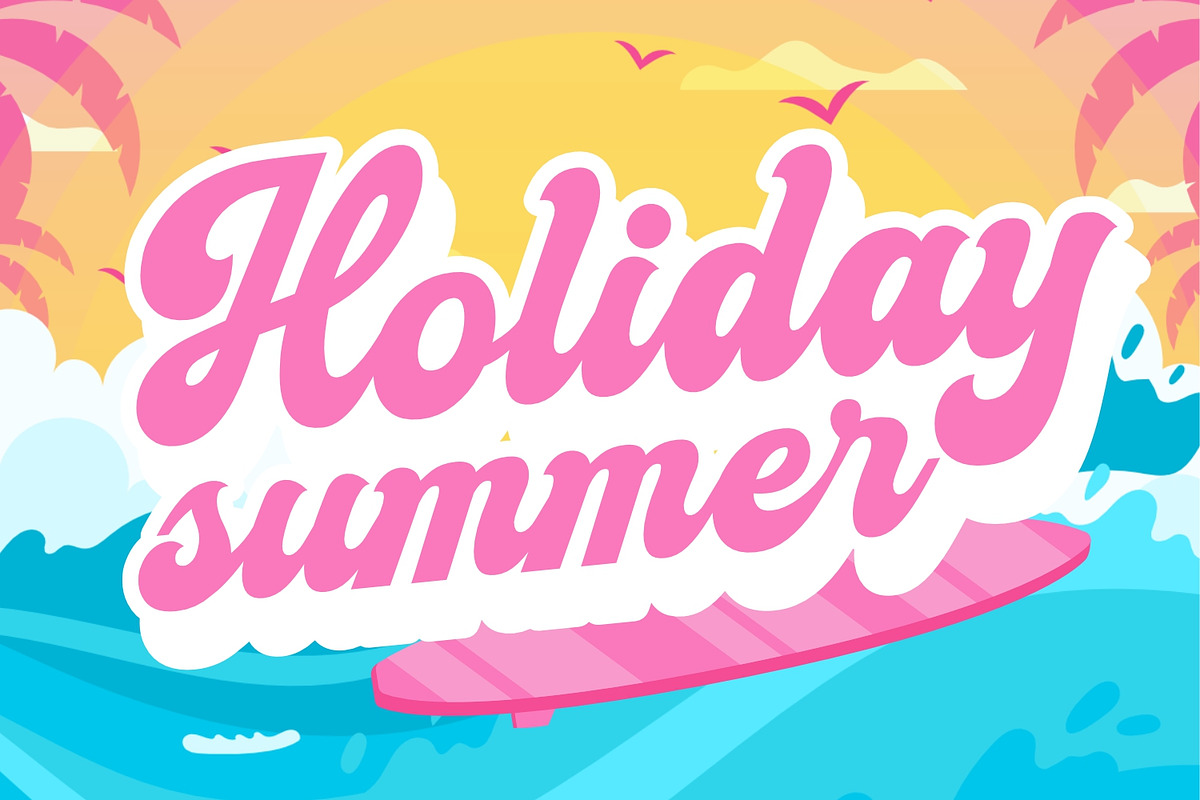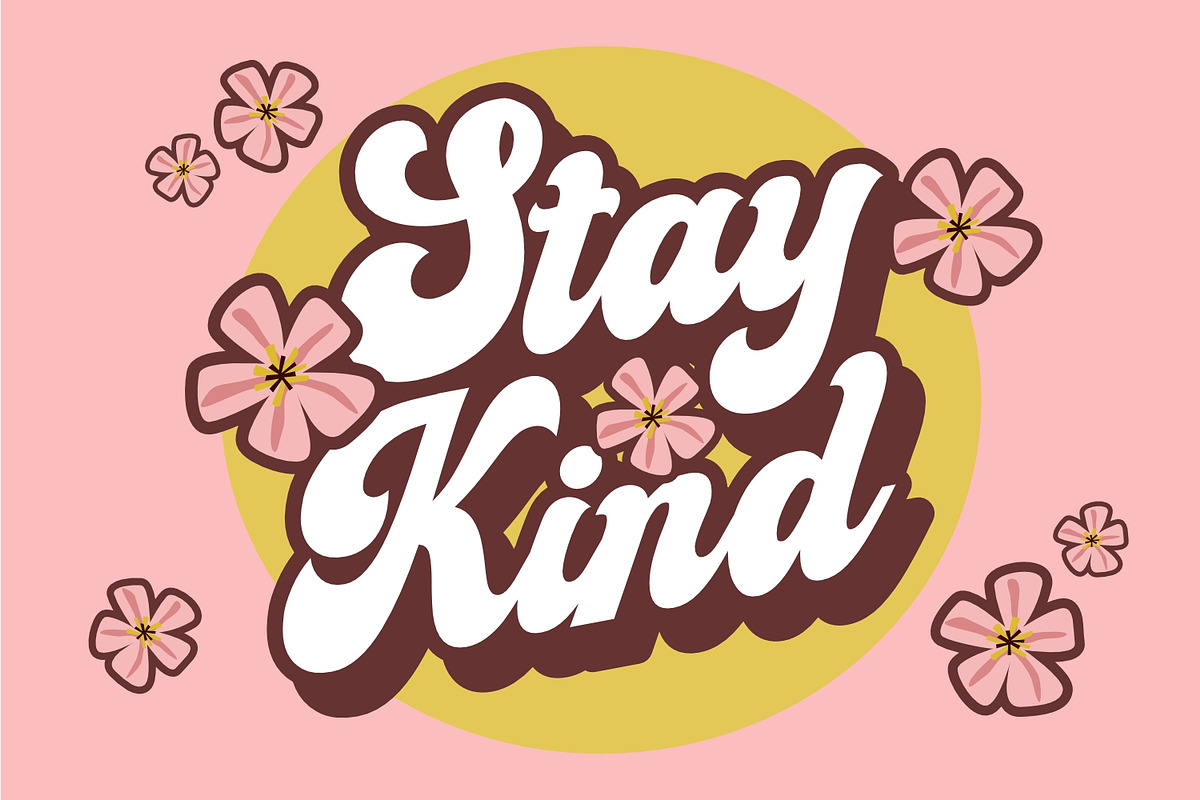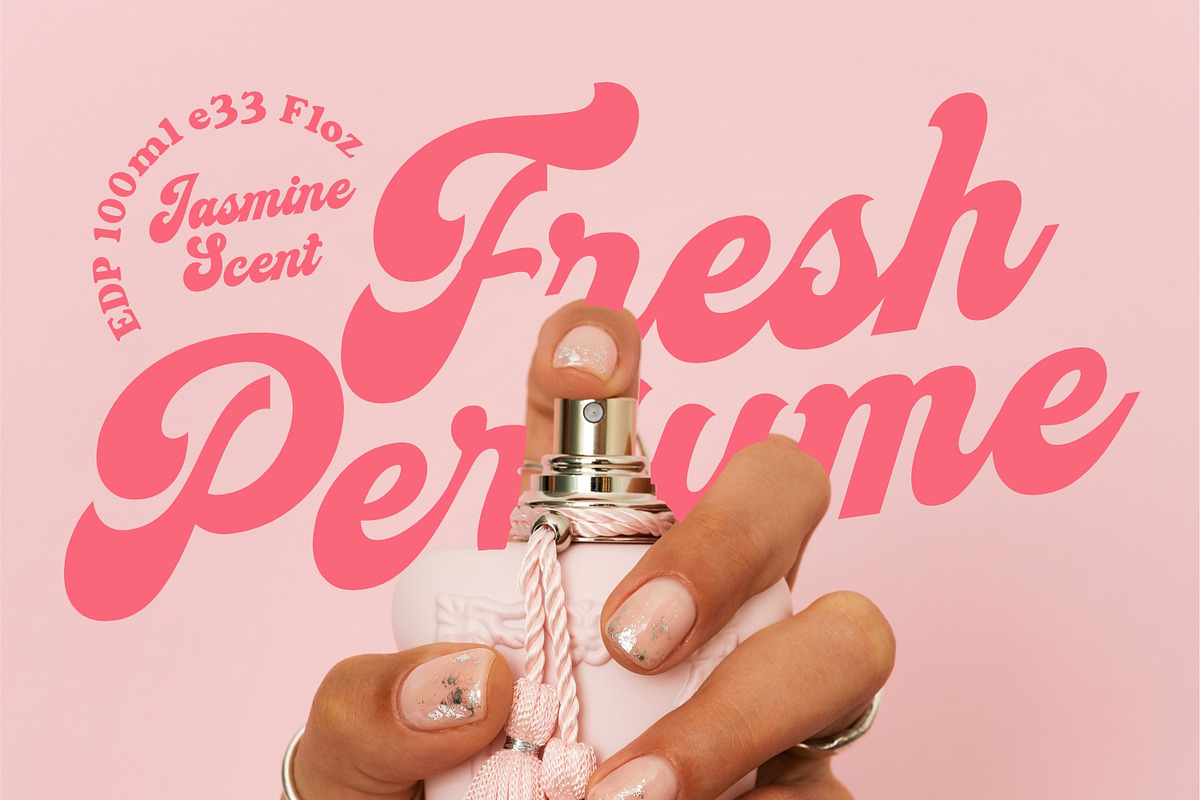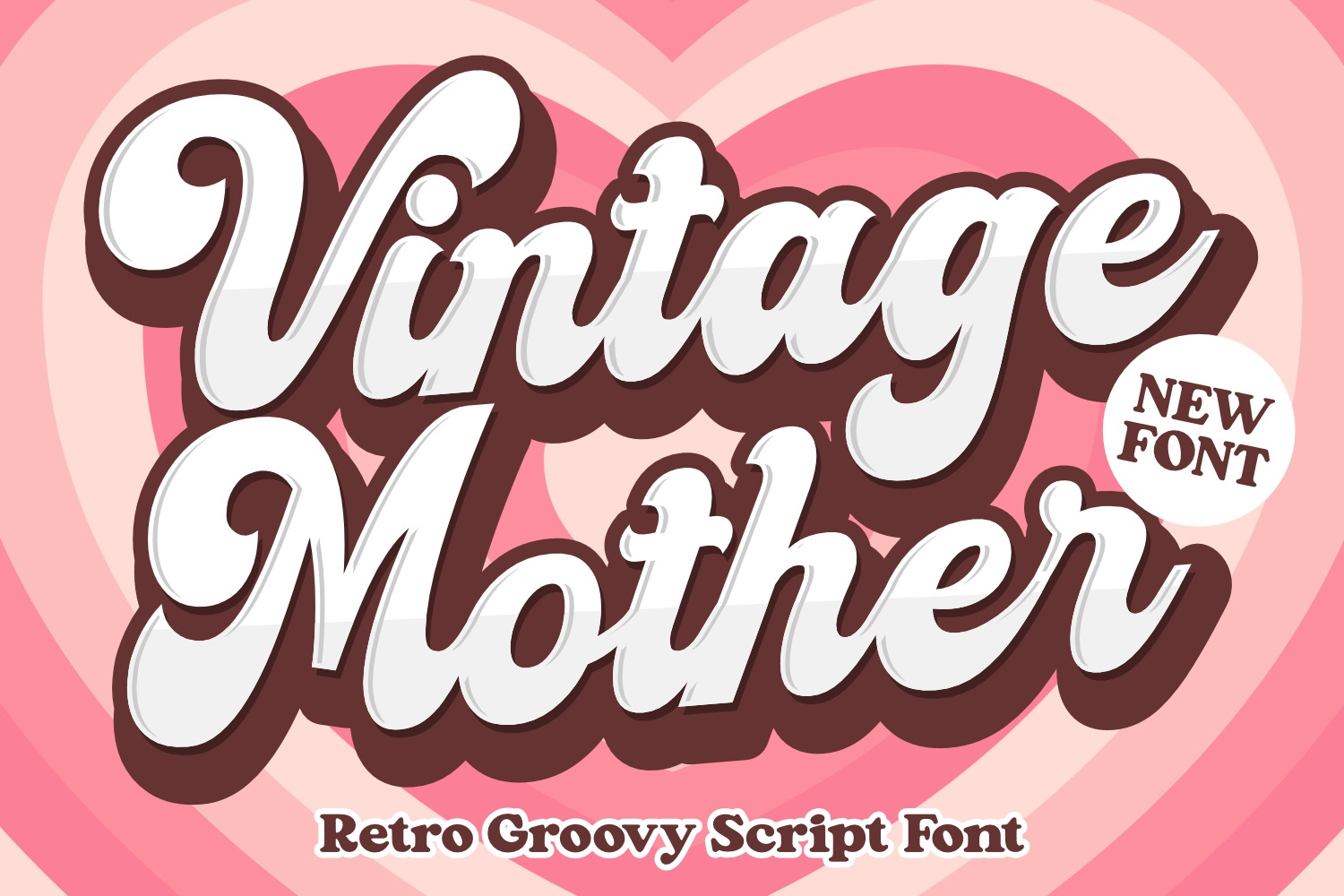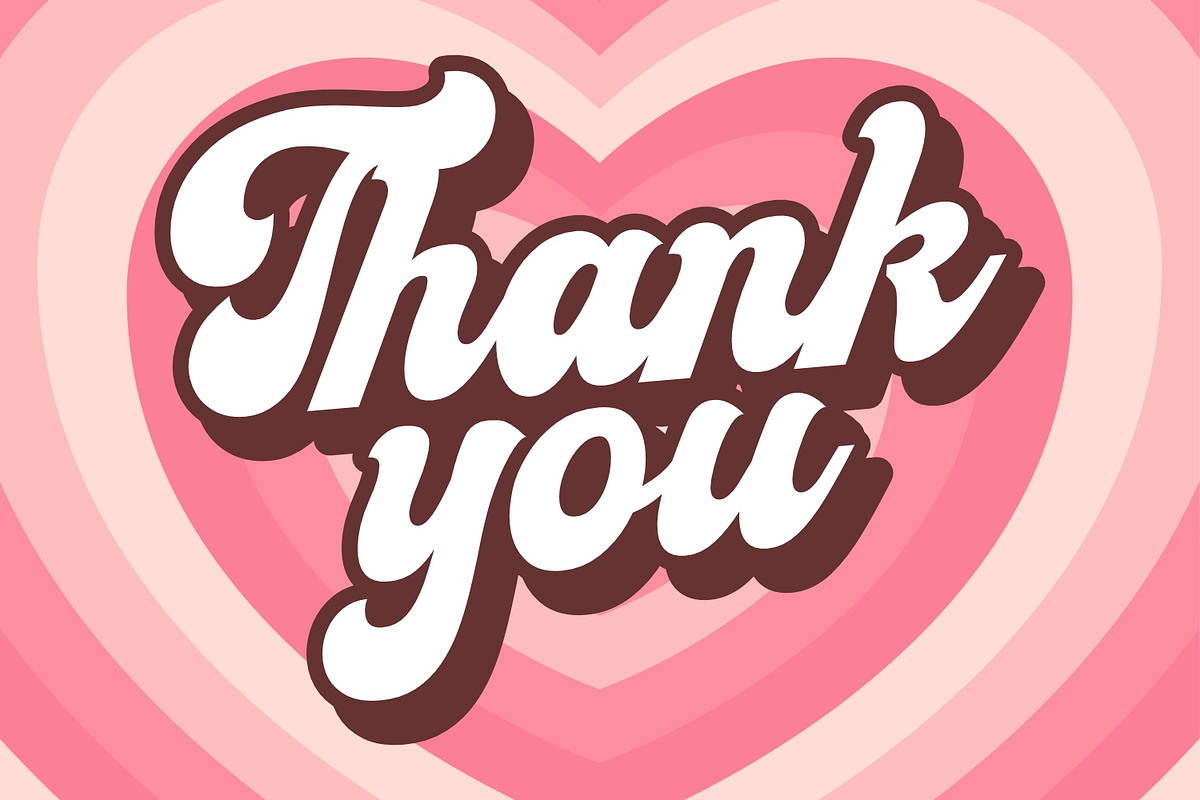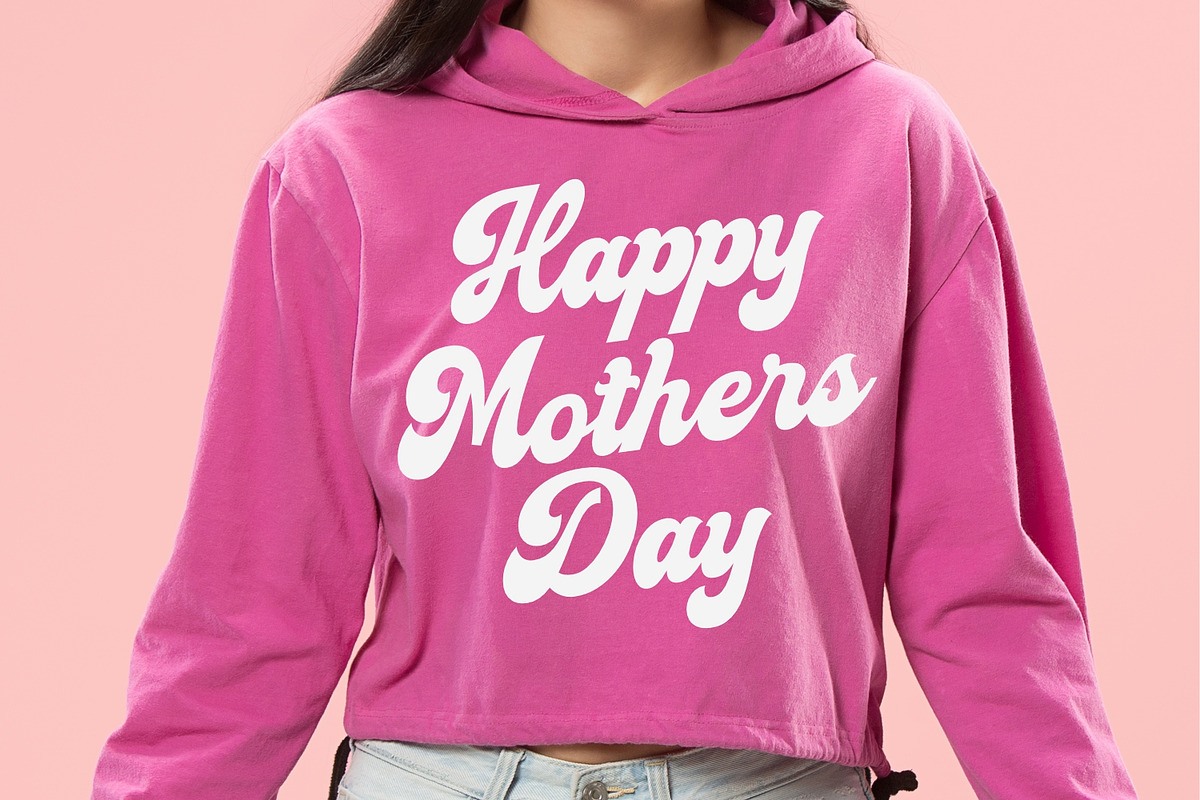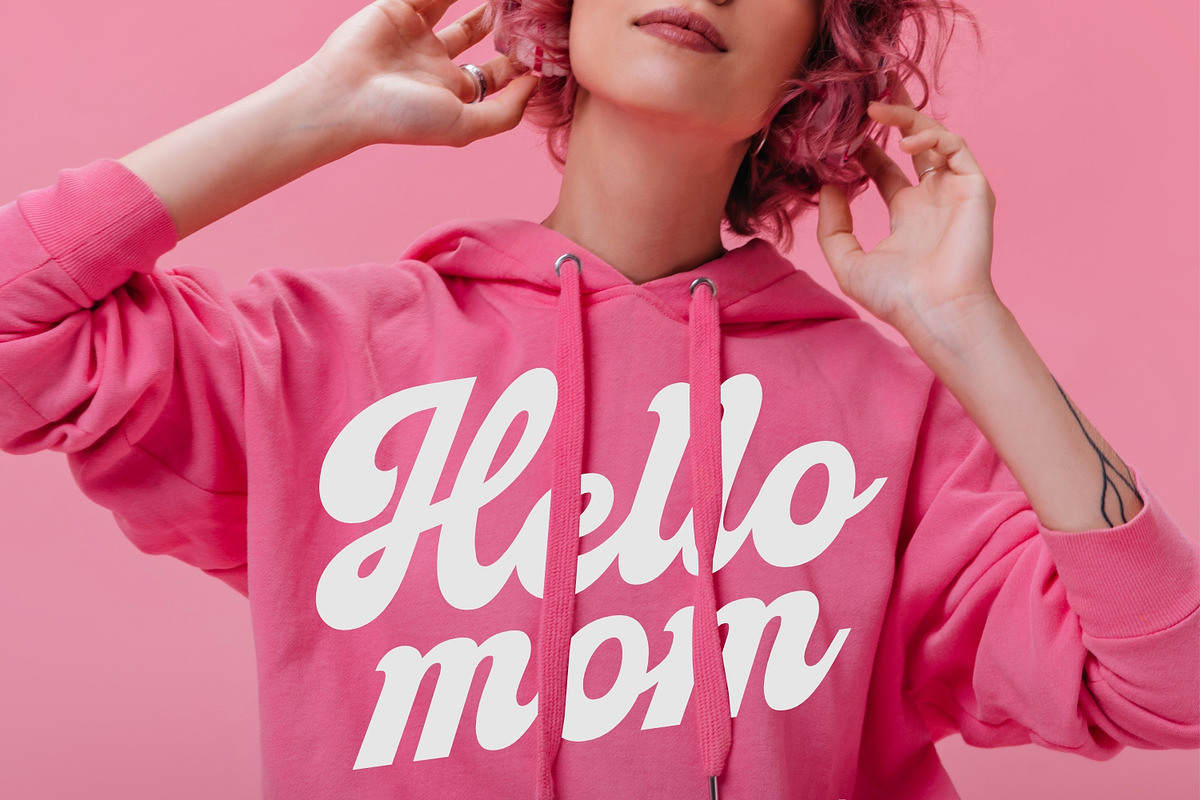
Vintage Mother - Retro Script Font
Vintage Mother is playfully nostalgic and delivers an incredible display font. Use this display font to add that special retro touch to any design idea you can think of! Masterfully designed to become a true favorite, this font has the potential to bring each of your creative ideas to the highest level!
The font is perfect for projects that seek a nostalgic or vintage feel, such as retro-themed designs, party invitations, music album covers, or any creative work aiming for a groovy and vibrant atmosphere. It adds a touch of whimsy and personality to any text, capturing the carefree and bold spirit of the era it represents.
Stylistic and Ligatures
Accented characters
Multiple Languages Supported